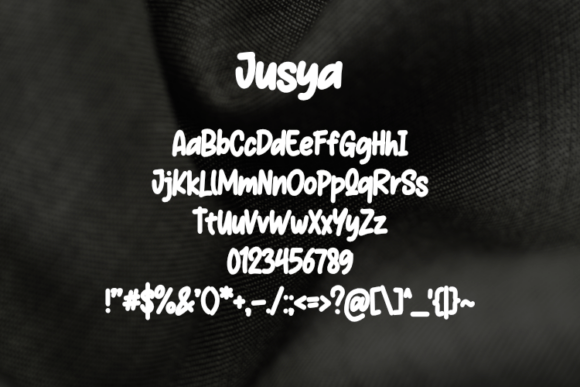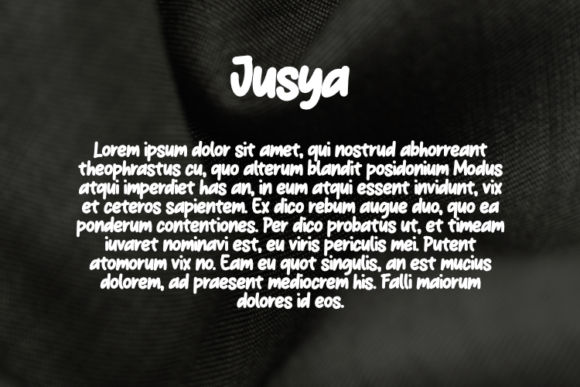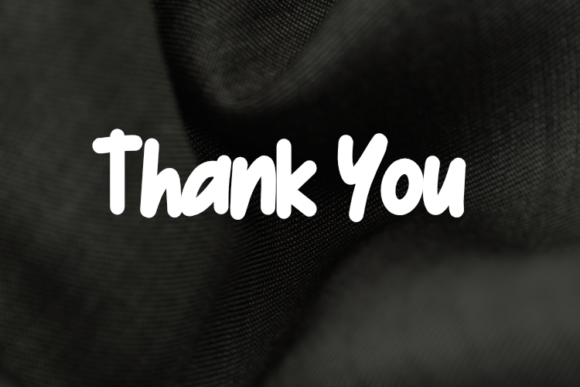
Introduction to Jusya Font Font
Fonts play a crucial role in design, and the Jusya Font font is a typeface that brings both character and versatility to any project. Whether you’re working on a branding project, a website, or a print design, the Jusya Font font offers a unique style that can elevate your work.
Introducing Jusya – a versatile typography solution crafted meticulously for fashion-forward designs, particularly garments and t-shirts.
Key Features of Jusya Font Font
Why Choose Jusya Font Font?
The Jusya Font font is more than just a typeface – it’s a design tool that helps you communicate your message with style and clarity. Its unique character set and versatile design make it suitable for a wide range of applications, from elegant invitations to bold headlines.
With its carefully crafted letterforms and balanced proportions, the Jusya Font font ensures readability and visual appeal across all mediums.
What makes Jusya Font font special?
The Jusya Font font stands out with its unique design, exceptional readability, and versatility across various design applications.